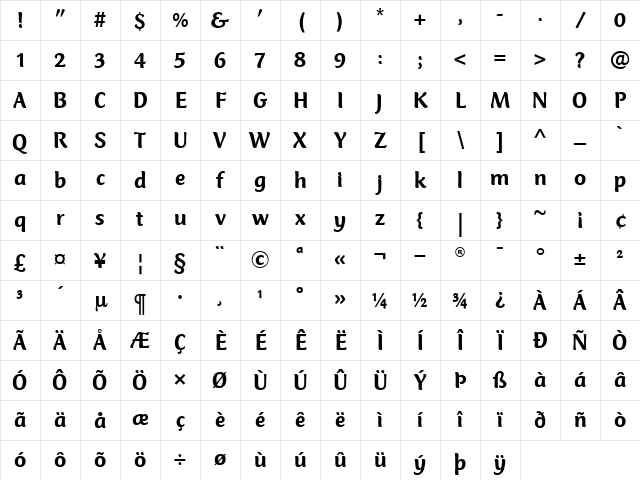
ClubTypeMercurius-Medium Medium
ClubTypeMercurius-Medium Family
Design Context for ClubTypeMercurius-Medium
ClubTypeMercurius-Medium is a composed and adaptable typeface that performs quietly and consistently across a wide range of design contexts.
Pro Tip: Use ClubTypeMercurius-Medium in both headline and body roles to test its range before committing to a single application.